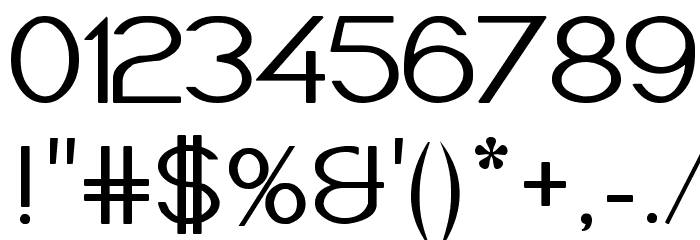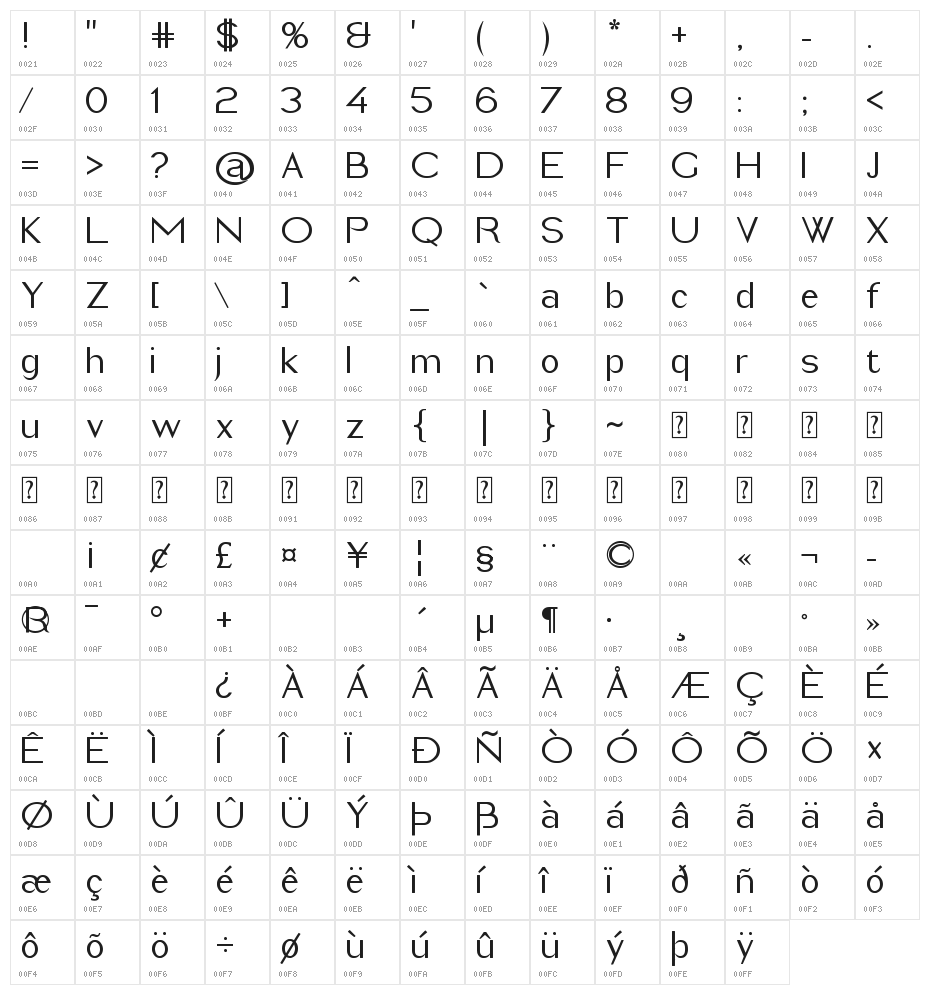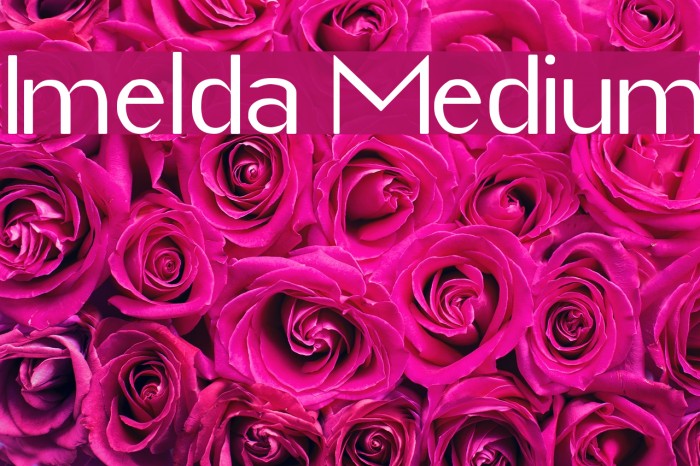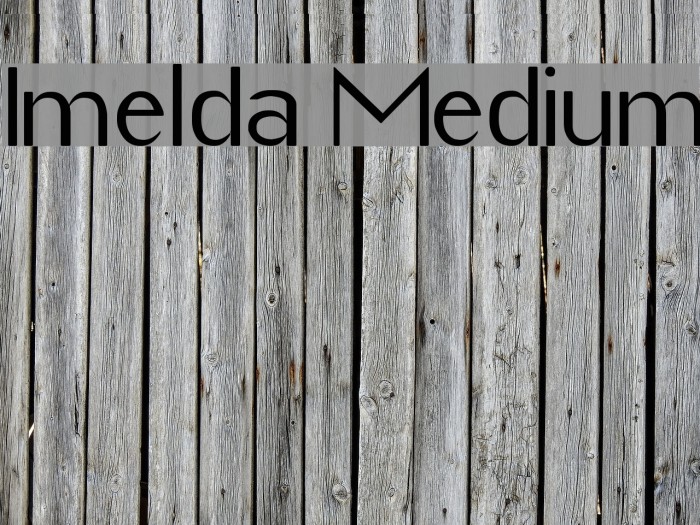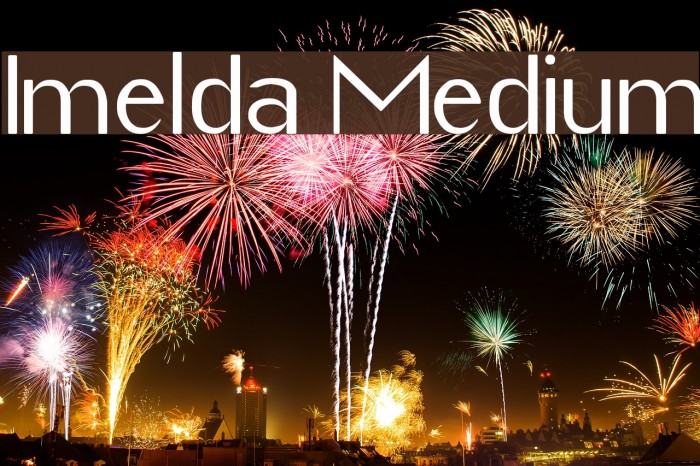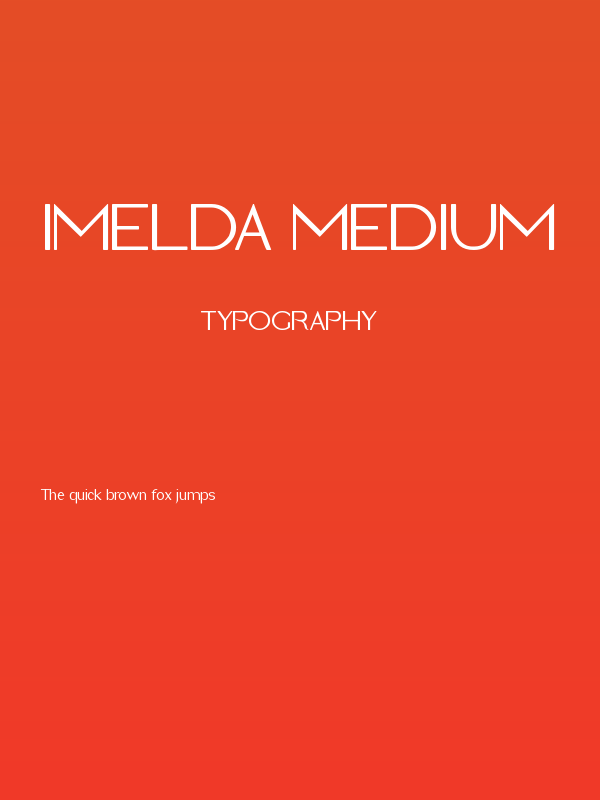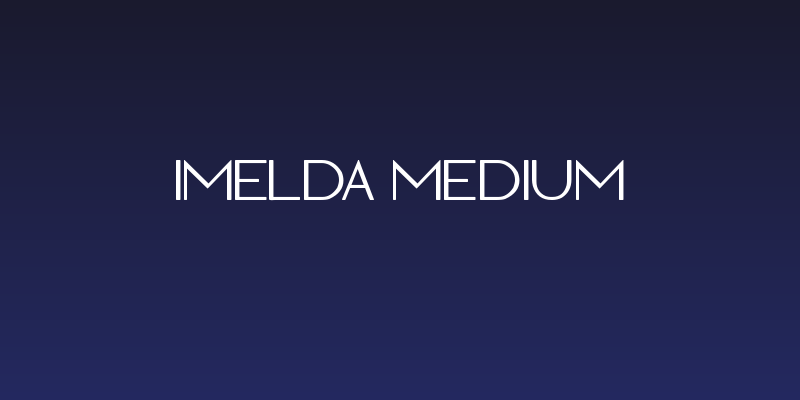
Imelda Medium Font
Imelda Medium Description
This font presents a clean and modern aesthetic with a sans-serif style. The characters are evenly spaced, contributing to a balanced and harmonious appearance. The uppercase letters are bold and assertive, while the lowercase letters maintain a consistent and smooth flow. The numerals are clear and easy to read, making them suitable for various applications. Special characters are well-defined, enhancing the font's versatility. Overall, this font is ideal for projects that require a contemporary and professional look.
| Proposed Projects | Ideal for branding, advertising, web design, and corporate communications. |